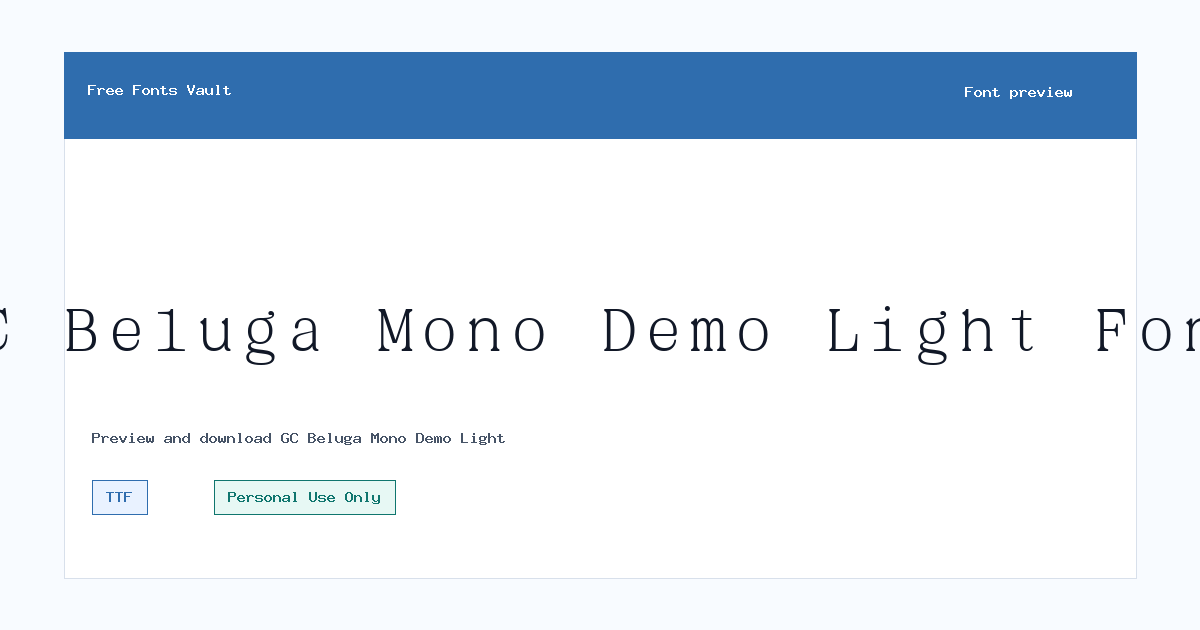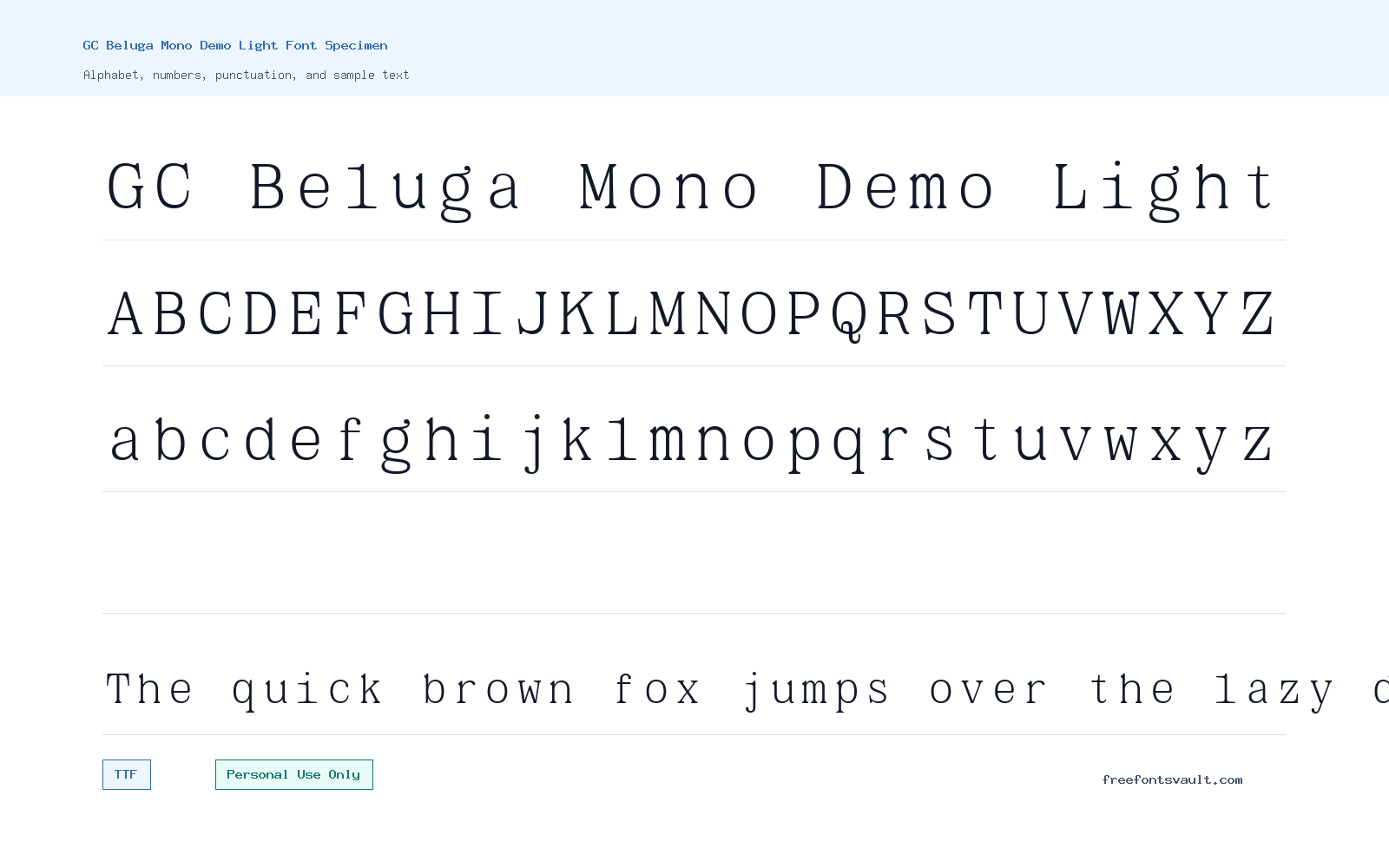
GC Beluga Mono Demo Light
GC Beluga Mono Demo Light is a light-weight demo font from Glyphonic, designed for personal-use projects where a clean, restrained type style is needed.
About GC Beluga Mono Demo Light
GC Beluga Mono Demo Light has a normal style with a light 300 weight, giving it a slimmer appearance than regular or bold display fonts. The name suggests a mono-inspired design, so it is worth testing with short words, numbers, labels, and compact headings to see how the spacing behaves in your layout. Because only the Light demo style is present, it works best when you want a quiet, minimal look rather than a heavy headline. Try it in the font preview with uppercase titles, lowercase samples, punctuation, and mixed numbers before using it in a design system or finished artwork.
This font is most useful for personal design drafts, mood boards, poster concepts, logo sketches, social graphics, editorial mockups, and web page previews. The light weight can look elegant in large sizes, but it may become too delicate in small body text or low-contrast colors. For logos and poster work, test it at the exact size you plan to use, especially if the design will be printed or viewed on mobile screens. If you need a stronger visual hierarchy, pair it with a heavier sans serif for headings or a readable text face for paragraphs. Keep the pairing simple so the light mono-style character does not get lost beside a more decorative font.
• Light 300 weight with a normal style, suitable for clean titles, labels, and refined short text.
• Works best in display-sized text where thin strokes have enough space to remain clear.
• A practical choice for testing logo directions, poster layouts, web mockups, and personal graphic projects.
• Personal logo concepts and brand direction tests
• Poster titles, event graphics, and mood-board typography
• Minimal web mockups, app UI studies, and landing page drafts
• Short labels, numbers, captions, and layout experiments
• Social media graphics where a light, clean type style fits the design
What weight is GC Beluga Mono Demo Light?
The included style is a light 300 weight with a normal font style.
Is this a good font for body text?
It is better suited to short text, headings, labels, and display use. The light weight may be harder to read in small sizes or long paragraphs.
How should I pair GC Beluga Mono Demo Light?
Pair it with a clear sans serif or a readable serif for body copy. Avoid pairing it with another thin or highly decorative font unless the layout has enough contrast.